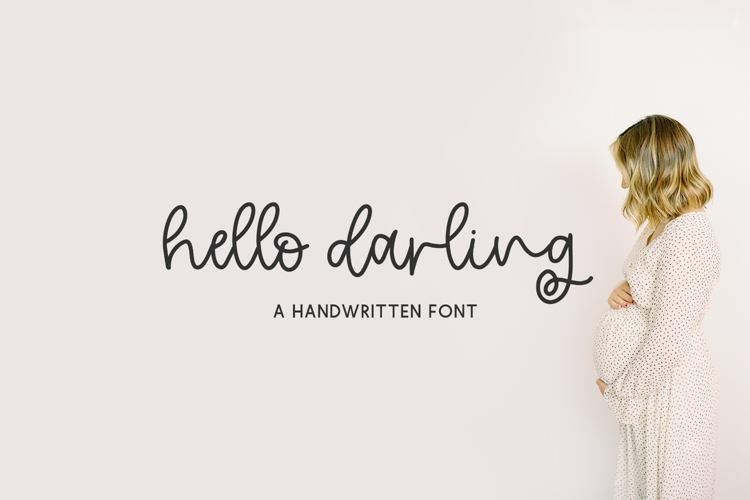
Say Hello Darling - meet this delightful monoline handlettered font.
Hello Darling Script is best for:
- logos + branding for feminine or kid-centric brands
- header elements that need a cute handwritten touch
- crafting with Cricut or Silhouette machines, since it has a super smooth edge for cutting vinyl!